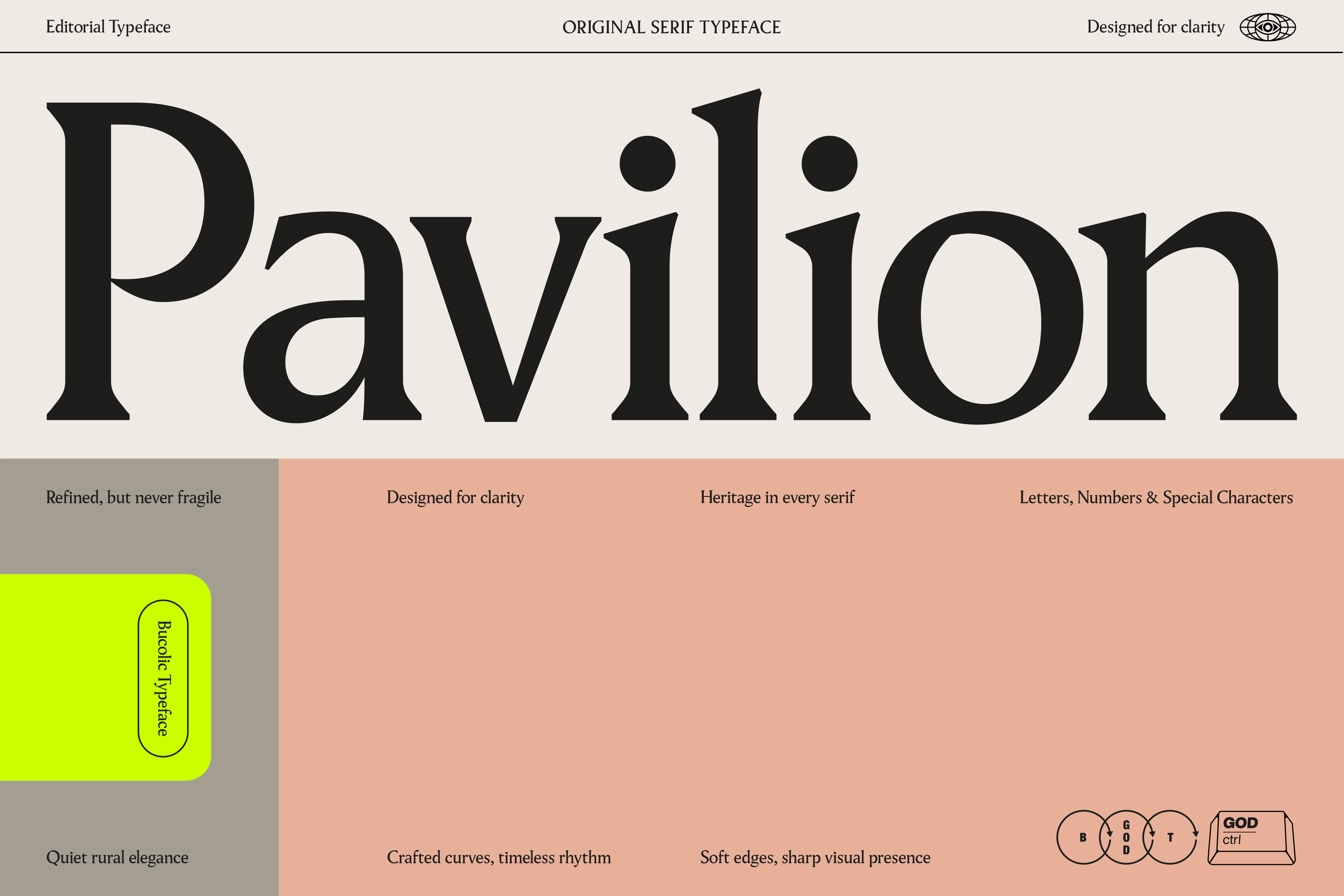
Pavilion Serif Typeface
Pavilion is that serif you didn’t know you needed — until now! It’s all about balance, where tradition meets modern edges and refinement meets flow. Everything is designed on purpose: every curve and cut give smooth rhythms and can keep your long-form text even, readable, and human but, at the same time, give energy to every title and headline.
The lowercase have soft curves, balanced spacing, and that perfect x-height that makes paragraphs read like butter. Every character has been fine-tuned to keep flow and texture on lock. The uppercase? Strong, balanced, and bold but not heavy.
Use it anywhere: body copy, titles, headlines, magazines, packaging, branding, websites — it belongs everywhere. Own it. Ctrl it.